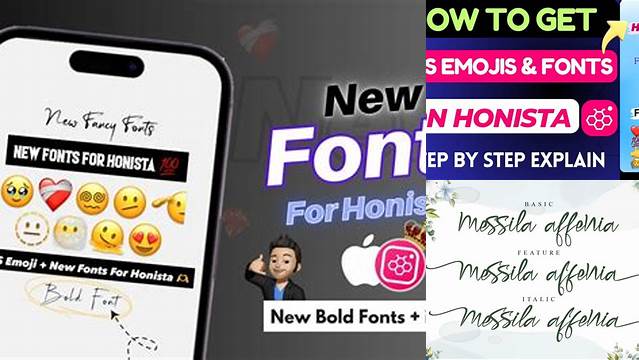
Honista Font: Free IOS 15 Style Download On Android
Are you looking to enhance your Android device with stylish fonts, especially those reminiscent of iOS 15? You're in the right place! In this article, we'll dive into the world of Honista fonts, exploring how you can download and install them on your Android device for free. We'll cover everything from finding reliable sources to step-by-step installation guides, ensuring your phone looks sleek and modern. So, let's get started and give your Android a fresh, new look!
Understanding Honista and iOS 15 Fonts
Before we get into the nitty-gritty of downloading and installing, let's understand what Honista is and why iOS 15 fonts are so popular. Honista is essentially a modified version of Instagram that offers additional features, including the ability to customize fonts. Many users are drawn to Honista because it allows them to use stylish fonts similar to those found in iOS 15, giving their Android devices an iPhone-like aesthetic. iOS 15 fonts, like San Francisco, are known for their clean, modern, and highly readable design, making them a favorite among mobile users. These fonts provide a sophisticated and polished look that many Android users desire. Moreover, the appeal lies in the uniformity and consistency these fonts bring to the user interface. By adopting these fonts, Android users can enjoy a visually cohesive experience across their devices, mirroring the seamless design of iOS. This customization enhances the overall usability and aesthetic appeal, making everyday interactions with the phone more enjoyable. The desire to personalize and stand out is a significant driver for this trend, as users seek to express their individuality through their devices. As you delve deeper into the world of Android customization, you'll find that fonts are just the tip of the iceberg. There are countless ways to tweak and modify your device to suit your personal taste, from custom launchers and icon packs to intricate themes and widgets. Each of these elements contributes to a unique user experience that sets your device apart from the crowd.
- Not all apps support custom fonts. Some apps may still display text in the default font.
- If you encounter any issues during the installation process, consult the font manager app's documentation or seek help from online forums.
By following these steps, you can easily download and install Honista fonts on your Android device and enjoy a stylish, personalized look.
Customizing Your Android Further
Once you've successfully installed Honista fonts and given your Android device a fresh new look, why stop there? There are countless other ways to customize your device and make it truly your own. From custom launchers and icon packs to intricate themes and widgets, the possibilities are endless. One popular way to customize your Android is by using a custom launcher. Launchers allow you to change the look and feel of your home screen, app drawer, and even the way you interact with your device. Some popular launchers include Nova Launcher, Apex Launcher, and Action Launcher. These launchers offer a wide range of customization options, such as changing the grid size, adding custom icons, and applying themes. Icon packs are another great way to personalize your Android device. Icon packs replace the default icons on your home screen and app drawer with custom icons that match your personal style. You can find icon packs in the Google Play Store, ranging from minimalist designs to vibrant, colorful icons. Themes can also transform the look of your Android device. Themes typically include a combination of custom wallpapers, icons, and color schemes that give your device a cohesive and stylish appearance. Some themes even include custom fonts and sound effects. Widgets are small, interactive elements that you can place on your home screen to display information or perform actions. Widgets can display the weather, upcoming calendar events, news headlines, and more. You can also find widgets that control music playback, toggle system settings, and perform other useful tasks. In addition to these common customization options, you can also explore more advanced techniques, such as rooting your device and installing custom ROMs. Rooting your device gives you access to the root file system, allowing you to make deeper changes to the operating system. Custom ROMs are modified versions of the Android operating system that offer additional features and customization options. However, rooting your device and installing custom ROMs can be risky and may void your warranty, so proceed with caution.
Troubleshooting Common Font Installation Issues
Even with a detailed guide, you might encounter some hiccups while installing Honista fonts on your Android device. Here are a few common issues and how to troubleshoot them:
- Font Not Showing Up: Sometimes, even after installation, the new font might not appear in your system settings or apps. Try clearing the cache of the font manager app and restarting your device. If that doesn't work, make sure the font file is properly formatted (.ttf or .otf) and that the font manager app supports the font format.
Customizing your Android device with Honista fonts is a fantastic way to personalize your phone and give it a unique flair. By following the steps outlined in this guide, you can easily download and install these fonts for free, transforming the look and feel of your device. Remember to always download fonts from reliable sources to protect your device from potential security threats. And don't be afraid to experiment with different fonts and customization options to find the perfect look for your Android. So go ahead, give your Android a fresh new look with Honista fonts and enjoy a stylish, personalized mobile experience! Have fun exploring the endless possibilities of Android customization and making your device truly your own. Whether you're looking to emulate the sleek design of iOS or simply want to express your individuality, Honista fonts offer a versatile and accessible way to achieve your desired aesthetic. So, embrace the world of customization and let your creativity shine through your Android device!